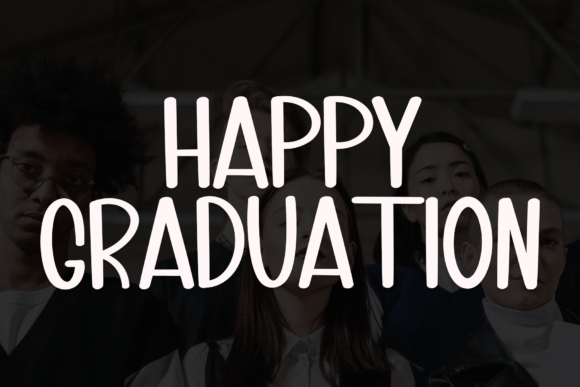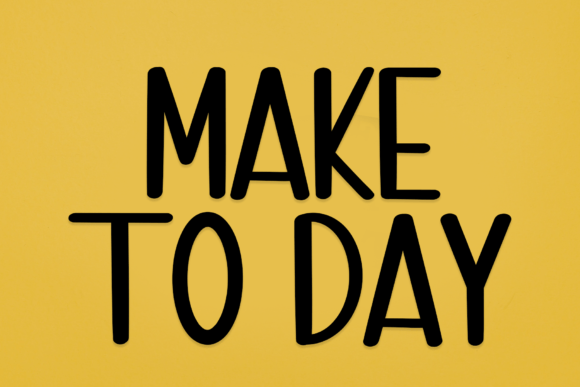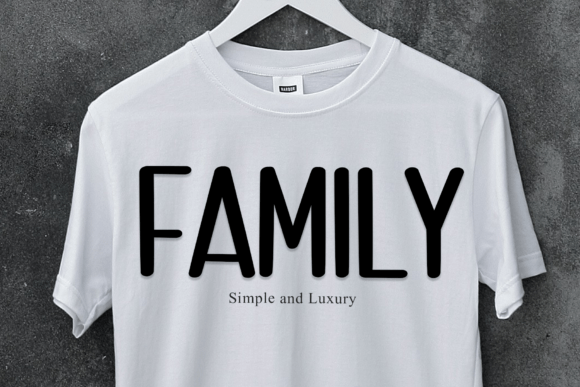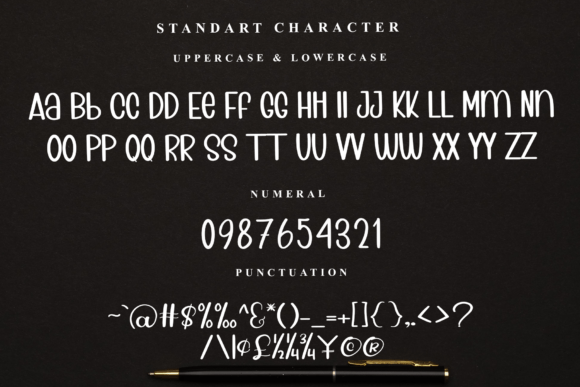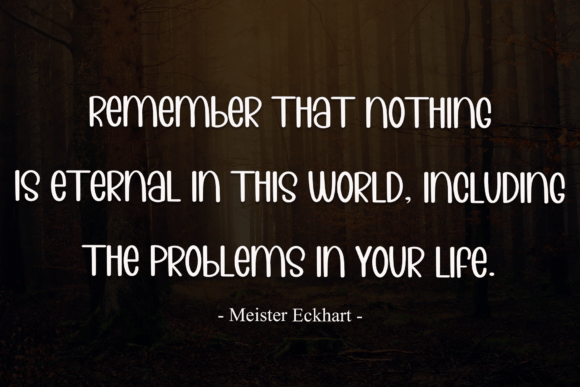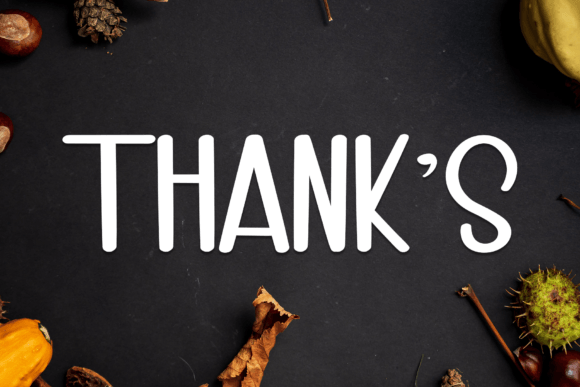
Coffee Mockup Font: The Perfect Blend of Casual and Elegant
Are you a designer or crafty enthusiast looking for a font that exudes a laid-back vibe with a touch of sophistication? Look no further than the Coffee Mockup Font. This casual sans-serif font is designed to bring a sense of warmth and approachability to your branding, logos, and editorial designs.
What Makes Coffee Mockup Font Stand Out?
Coffee Mockup Font boasts clean lines and rounded edges, giving it a friendly and approachable appearance. The subtle variations in stroke width add character and depth to the font, making it perfect for a wide range of design applications. Whether you’re creating a logo, brochure, or social media graphic, Coffee Mockup Font is sure to make your design stand out.
Key Features of Coffee Mockup Font
- Casual Sans-Serif Font: Coffee Mockup Font features a relaxed, casual design that’s perfect for creating a laid-back vibe.
- Clean Lines and Rounded Edges: The font’s clean lines and rounded edges give it a friendly and approachable appearance.
- Subtle Variations in Stroke Width: The subtle variations in stroke width add character and depth to the font.
- Perfect for Branding, Logos, and Editorial Designs: Coffee Mockup Font is ideal for creating a wide range of designs, from logos and branding materials to editorial designs and social media graphics.
Why Choose Coffee Mockup Font?
So why choose Coffee Mockup Font for your design projects? Here are just a few reasons:
- Unique and Eye-Catching: Coffee Mockup Font is a unique and eye-catching font that’s sure to make your design stand out.
- Versatile: The font is versatile and can be used for a wide range of design applications.
- Easy to Read: Coffee Mockup Font is easy to read, even at small sizes.
- High-Quality: The font is high-quality and designed to deliver exceptional results.
How to Use Coffee Mockup Font in Your Designs
Using Coffee Mockup Font in your designs is easy. Here are a few tips to get you started:
- Pair with Other Fonts: Pair Coffee Mockup Font with other fonts to create a unique and eye-catching design.
- Use for Headings and Body Text: Use Coffee Mockup Font for both headings and body text to create a cohesive look.
Coffee Mockup Font: The Perfect Choice for Designers and Crafters
Coffee Mockup Font is the perfect choice for designers and crafters looking for a font that exudes a laid-back vibe with a touch of sophistication. Whether you’re creating a logo, brochure, or social media graphic, Coffee Mockup Font is sure to deliver exceptional results.